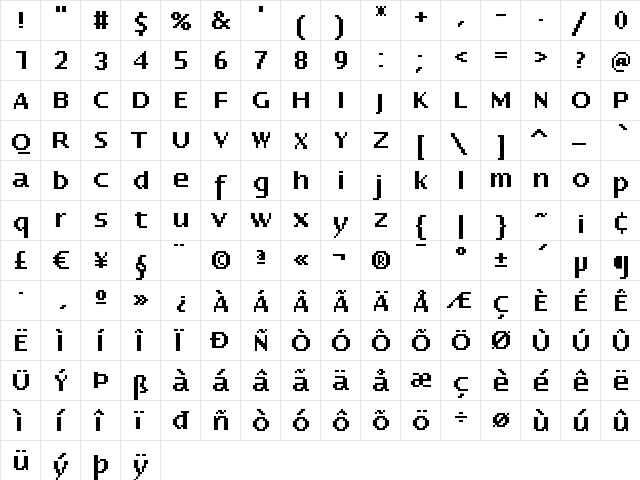
FedraTwelve Bold
Design Context for FedraTwelve Typeface
FedraTwelve is a composed and adaptable typeface that performs quietly and consistently across a wide range of design contexts. The heavy weight commands attention and anchors typographic hierarchies.